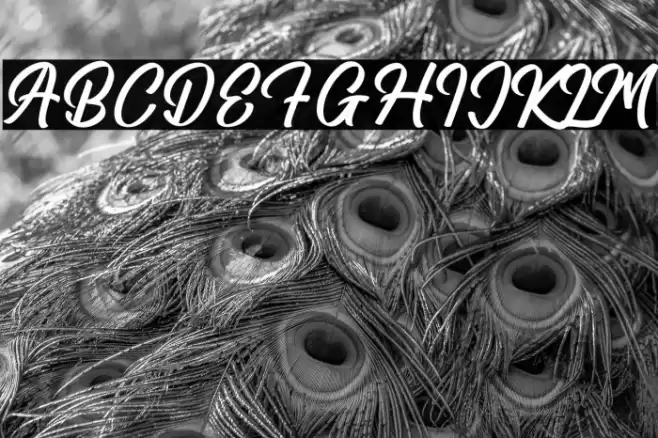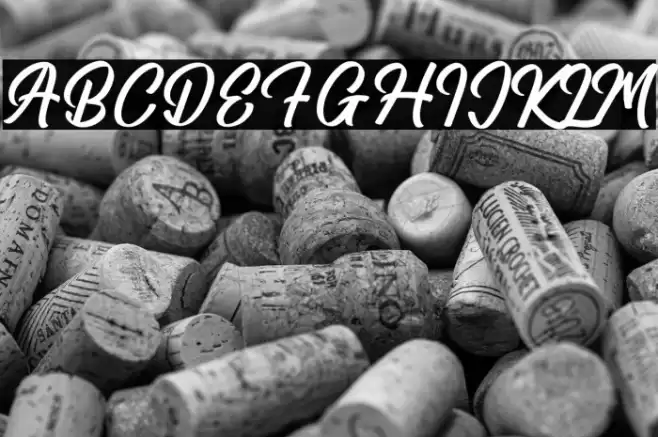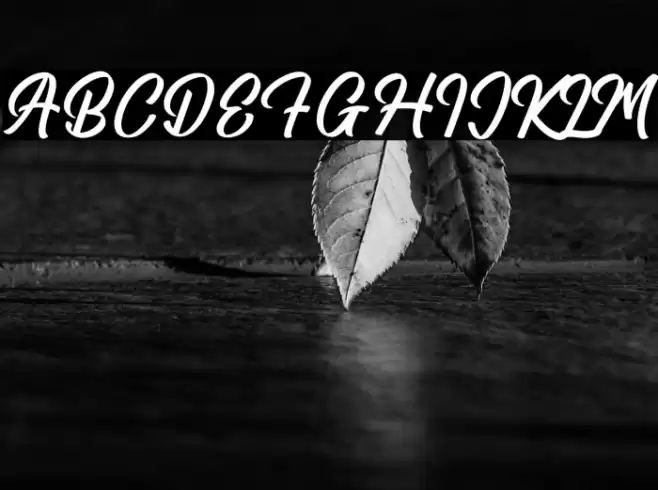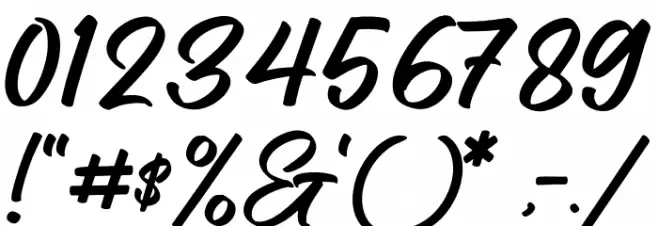
Amsterdam Traveling Font
Amsterdam Traveling Description
This font features a bold, flowing script style that exudes elegance and sophistication. The characters are connected with smooth, sweeping strokes, giving it a handwritten appearance. The uppercase letters are slightly more ornate, with flourishes that add a touch of flair. The lowercase letters maintain a consistent flow, enhancing readability while preserving the font's artistic nature. Numbers and special characters are designed to match the overall style, ensuring a cohesive look across all text elements. The font's bold weight and medium contrast make it suitable for impactful designs.
A bold, flowing script font with elegant, connected strokes from Uncategorized fonts.
- Font: Amsterdam Traveling
- Proposed Projects: Ideal for wedding invitations, branding, logos, and elegant packaging designs.
- Overall Style: Elegant, Artistic
- Use Case: Logos, Invitations, Branding